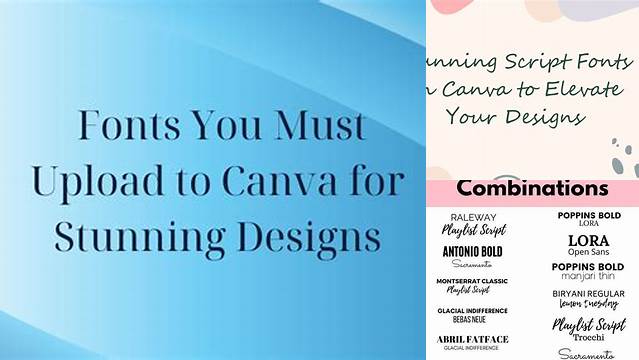
Top Canva Fonts: Create Stunning Designs
Choosing the right font is crucial for creating visually appealing designs in Canva. The right typography can elevate your project, making it more engaging and professional. In this guide, we'll explore some of the best Canva fonts to help you create stunning designs, covering a wide range of styles and uses. So, let's dive in and discover the perfect font for your next project, guys!
1. Best Canva Fonts for Logos
When designing a logo, selecting the best Canva fonts is paramount. A logo font should be legible, memorable, and reflective of your brand's identity. Think about the message you want to convey: is your brand modern and sleek, or classic and elegant? For a modern look, consider sans-serif fonts like Montserrat or Proxima Nova (if you upload it to Canva). These fonts offer clean lines and a contemporary feel. For a more classic or sophisticated brand, serif fonts like Playfair Display or Libre Baskerville can add a touch of elegance and tradition. Script fonts can also be used, but sparingly, and should be highly legible, such as a clean and modern script like Playlist Script. Remember, the best Canva fonts for logos will be scalable and work well in both large and small sizes, ensuring your logo looks crisp across various platforms and applications. Experiment with different combinations and weights to find the perfect balance that represents your brand effectively.
2. Top Canva Fonts for Headings
Headings are the first thing your audience sees, so the top Canva fonts for headings need to grab attention and clearly communicate the subject matter. Consider using bold and impactful fonts like Bebas Neue or Oswald for a modern and authoritative feel. These sans-serif fonts are excellent choices for headings due to their clean lines and strong presence. For a touch of elegance, you might opt for a serif font like Merriweather or Arvo, which adds a classic and readable touch. Experiment with different font pairings to create visual hierarchy; for example, a bold sans-serif heading paired with a lighter serif body text can create a balanced and professional look. The best Canva fonts for headings will also depend on the overall design style; if your design is playful and informal, a more whimsical font like Luckiest Guy might be appropriate, but for a formal presentation, stick to something more traditional and legible. Always ensure your headings are large enough to be easily read and stand out from the body text.
3. Best Canva Fonts for Body Text
Readability is key when choosing the best Canva fonts for body text. You want your audience to easily engage with your content without straining their eyes. Serif fonts like Open Sans and Roboto are excellent choices for body text, as they are designed for readability on screens. These fonts have clean, simple letterforms that are easy to scan, even in large blocks of text. Sans-serif fonts like Lato and Nunito are also popular options for body text, offering a modern and clean aesthetic while maintaining excellent readability. When selecting the best Canva fonts, consider the font size and line height to ensure optimal reading comfort. A good rule of thumb is to use a font size of at least 16 points for body text on digital platforms and to adjust the line height to create sufficient spacing between lines. Avoid overly decorative or script fonts for body text, as they can be challenging to read in large quantities. Stick to clear and legible fonts that allow your content to shine.
While Canva offers a great selection of free fonts, sometimes investing in premium fonts can take your designs to the next level. Premium Canva fonts often have unique characteristics and additional weights and styles that aren’t available in the free options. This can give your designs a more polished and professional look. Some popular premium font families include Proxima Nova, Brandon Grotesque, and Gotham, which are known for their versatility and legibility. These fonts are widely used by professional designers and can add a sophisticated touch to your projects. While the cost of premium Canva fonts can vary, the investment can be worthwhile if you’re looking to create a distinctive brand identity or elevate the quality of your designs. Consider your budget and the specific needs of your project when deciding whether to invest in premium fonts. Often, a single well-chosen premium font can make a significant difference in the overall impact of your design.
6. Canva Font Pairings That Work Well Together
Font pairing is an art, and choosing the right combinations can significantly impact the overall look and feel of your design. Canva font pairings that work well together typically involve contrasting a heading font with a body text font. For example, pairing a bold sans-serif heading like Montserrat with a classic serif body text like Open Sans creates a balanced and readable design. Another popular combination is using a display font like Playfair Display for headings with a clean sans-serif like Lato for the body text. When selecting Canva font pairings, consider the overall tone and style of your design. A modern and minimalist design might benefit from pairing two different weights of the same font family, such as Roboto Bold for headings and Roboto Regular for body text. A more traditional design might pair a serif heading with a serif body text, but it’s important to ensure enough contrast to maintain readability. Experimenting with different combinations is key to finding the perfect font pairing for your project. Canva’s font library offers many options, so don’t be afraid to try different combinations until you find what works best.
7. Canva Script Fonts for Elegant Designs
Script fonts can add a touch of elegance and personality to your designs, but they should be used sparingly and with careful consideration. Canva script fonts are best suited for headings, logos, or other design elements where you want to make a statement, rather than for large blocks of body text. Some popular script fonts in Canva include Great Vibes, Pacifico, and Dancing Script. These fonts have a flowing, handwritten style that can add a touch of sophistication and charm to your designs. When using Canva script fonts, it’s important to ensure they are legible, especially in smaller sizes. Avoid using overly decorative or complex scripts, as they can be difficult to read. Pairing a script font with a clean sans-serif or serif font for the body text is a great way to create a balanced and visually appealing design. For example, you might use a script font for a wedding invitation heading and pair it with a simple serif font for the invitation details. Remember, the key to using script fonts effectively is to use them sparingly and strategically to add personality without sacrificing readability.
8. Bold Canva Fonts for Impactful Titles
When you need to make a strong statement, bold Canva fonts are your best friend. These fonts command attention and are perfect for titles, headlines, and call-to-actions. A bold font can instantly add emphasis and create visual hierarchy in your design. Some excellent bold fonts available in Canva include Bebas Neue, Montserrat Bold, and Impact. These fonts have a strong presence and are highly legible, making them ideal for grabbing attention. When using bold Canva fonts, consider the overall design and ensure the font aligns with your brand’s aesthetic. A bold font doesn’t always have to be thick and heavy; a semi-bold or extra-bold weight can also provide sufficient emphasis while maintaining a cleaner look. Pairing a bold heading font with a lighter body text font creates a nice contrast and helps guide the reader’s eye. Remember, the purpose of using a bold font is to make your text stand out, so use it strategically to highlight key information and draw attention to important elements in your design.
9. Canva Serif Fonts for a Classic Look
Serif fonts have a timeless quality and are often associated with tradition, elegance, and authority. Canva serif fonts are characterized by the small decorative strokes (serifs) at the ends of the letterforms, which can add a touch of sophistication to your designs. Some popular serif fonts in Canva include Playfair Display, Merriweather, and Libre Baskerville. These fonts are excellent choices for headings, body text, and logos, particularly when you want to convey a sense of classic style or professionalism. When using Canva serif fonts, consider the overall tone of your design. A formal or academic project might benefit from a traditional serif font like Times New Roman, while a more modern design might use a serif font with a contemporary twist, such as Arvo or Roboto Slab. Serif fonts are generally highly readable, making them a great choice for longer blocks of text, but it’s important to choose a font size and line height that ensures comfortable reading. Pairing a serif heading font with a sans-serif body text font can create a balanced and visually interesting design.